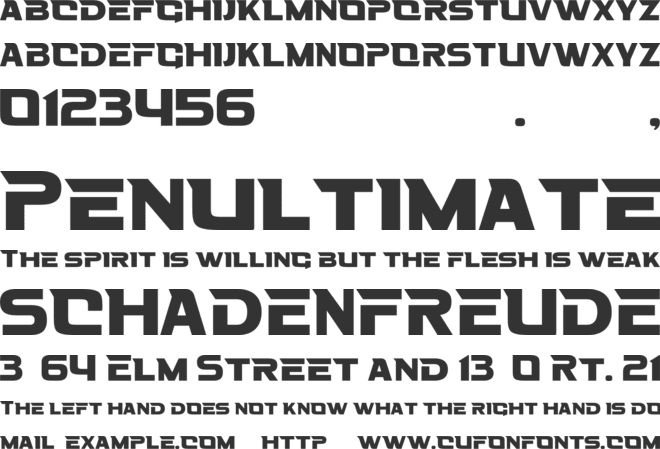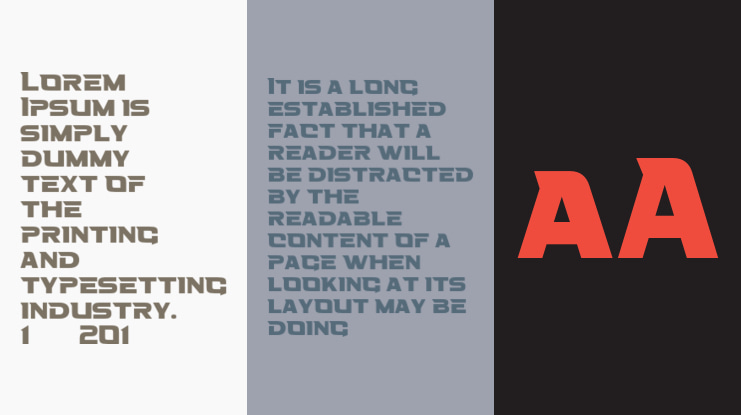
Fasthour Font
Fasthour is a high-energy display font inspired by electric power, speed, and motion. Its sharp cuts, angled forms, and bold structure create a dynamic look that feels fast, charged, and futuristic.